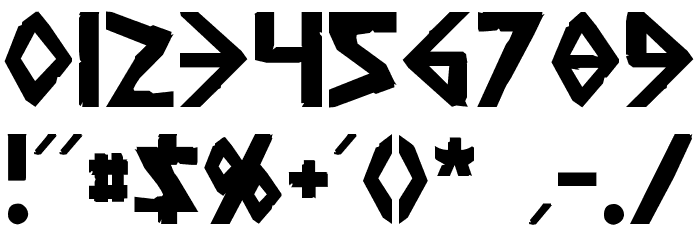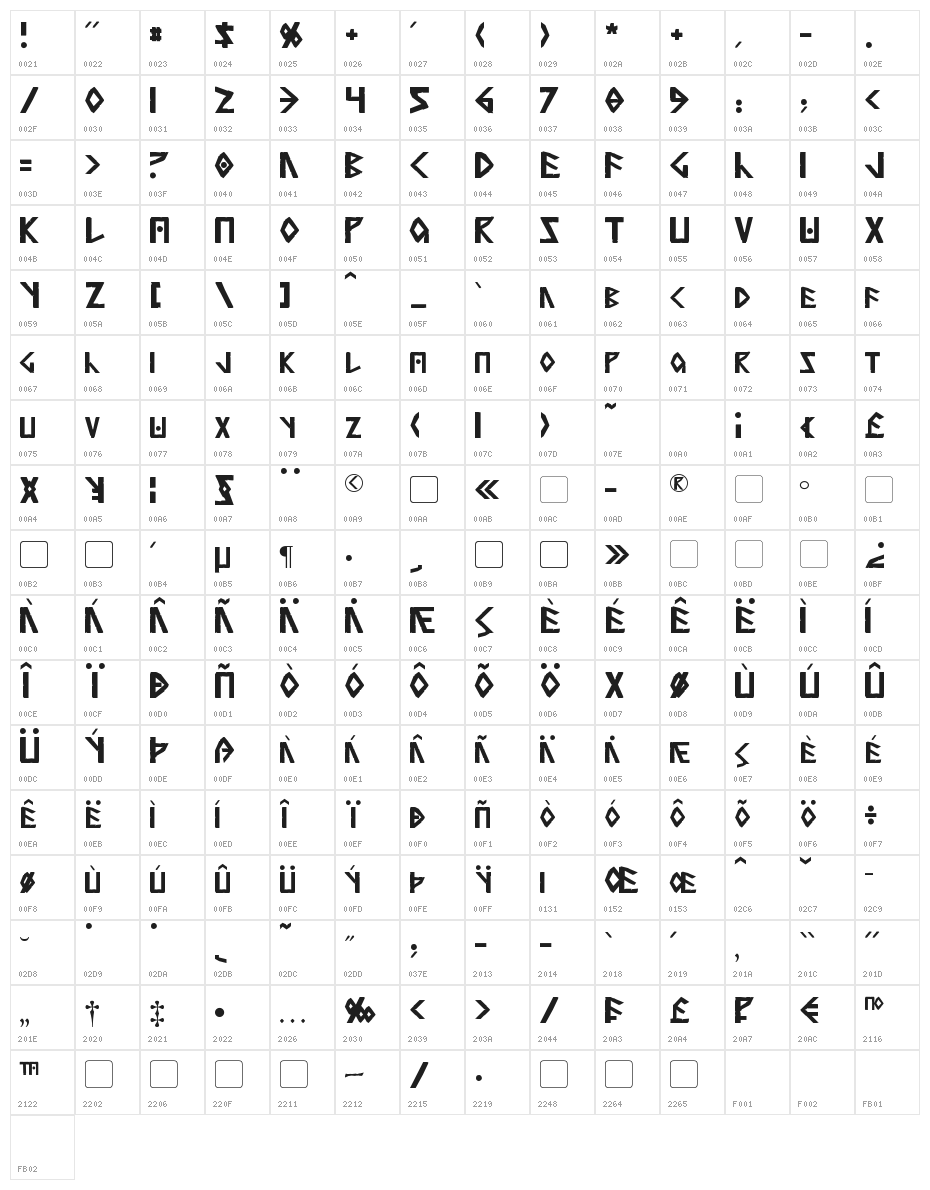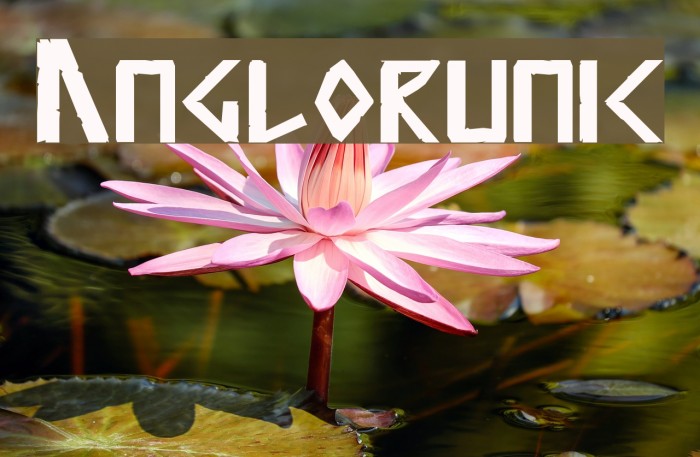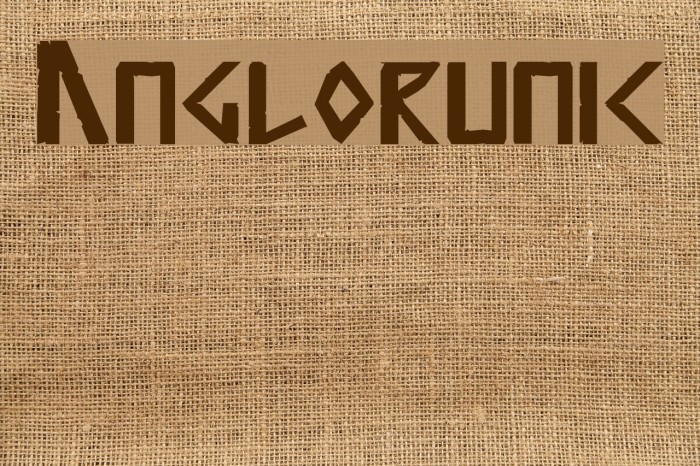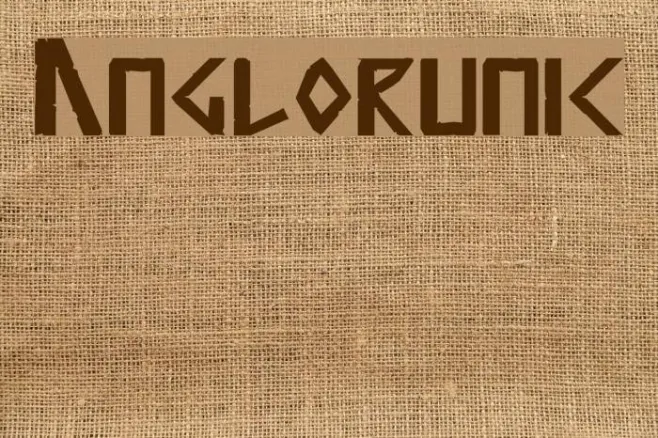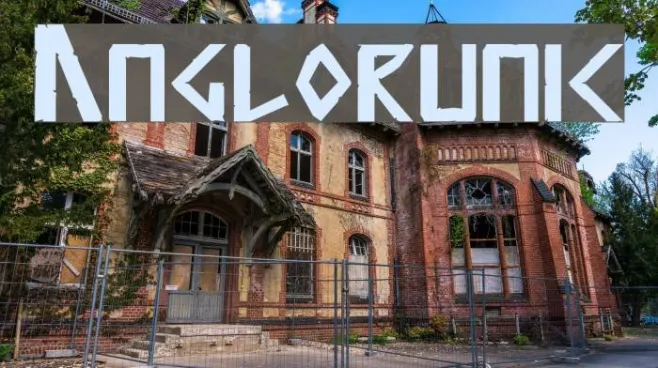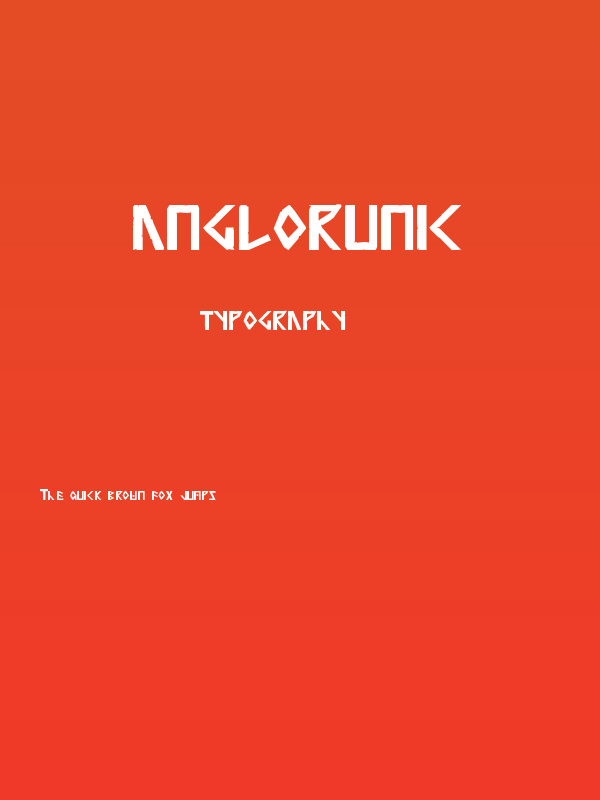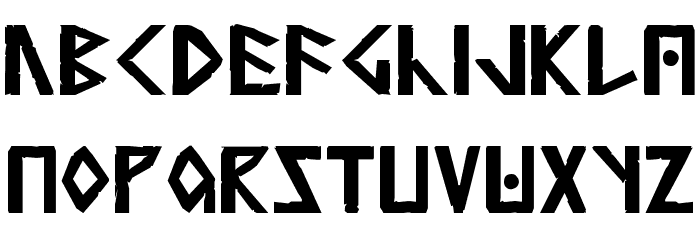
Anglorunic Font
Anglorunic Description
This font features a bold and angular design, reminiscent of ancient runic alphabets. Each character is crafted with sharp edges and geometric shapes, giving it a distinct and striking appearance. The uppercase letters are particularly prominent, with a consistent height and width that ensures readability while maintaining a unique style. The numbers and special characters follow the same angular theme, providing a cohesive look across all glyphs. This font's design is both modern and historical, making it suitable for projects that require a touch of antiquity with a contemporary twist.